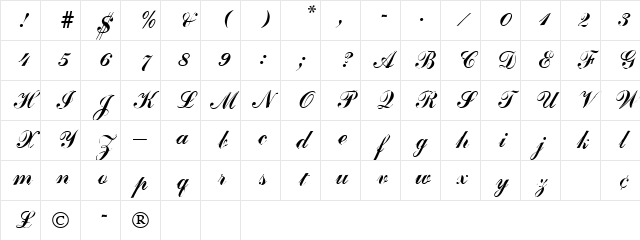
ADHEREA Regular
Design Context for ADHEREA
ADHEREA is a composed and adaptable typeface that performs quietly and consistently across a wide range of design contexts.